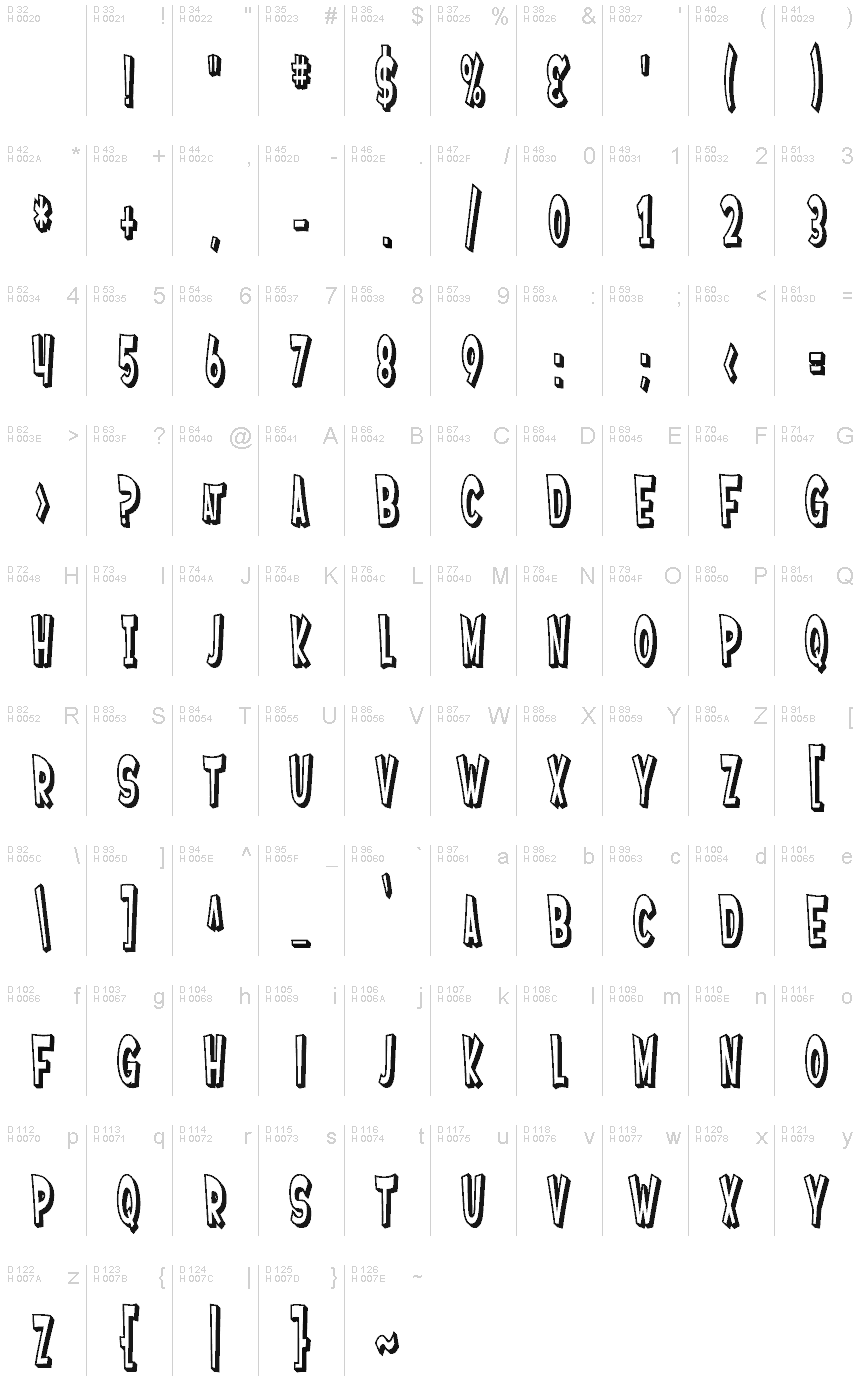
SF Ferretopia Shaded
SF Ferretopia Shaded, a distinctive creation by ShyFonts Type Foundry, is a font that captures attention with its 3D comic style and extra-condensed width. Crafted for impact, this display typeface boasts an aesthetic that balances playfulness with precision, making it ideal for projects that require a touch of whimsy without sacrificing clarity.
The shaded contours of SF Ferretopia Shaded offer a dynamic sense of depth, infusing each character with life and movement. This makes the font especially suitable for titles, logos, and any design work where a bold statement is desired. Its unique characteristics ensure that any text set in SF Ferretopia Shaded will stand out with an engaging personality.
Whether used in digital graphics, print media, or playful branding initiatives, SF Ferretopia Shaded offers endless possibilities to designers looking to add a vibrant and energetic feel to their creative projects.
The shaded contours of SF Ferretopia Shaded offer a dynamic sense of depth, infusing each character with life and movement. This makes the font especially suitable for titles, logos, and any design work where a bold statement is desired. Its unique characteristics ensure that any text set in SF Ferretopia Shaded will stand out with an engaging personality.
Whether used in digital graphics, print media, or playful branding initiatives, SF Ferretopia Shaded offers endless possibilities to designers looking to add a vibrant and energetic feel to their creative projects.